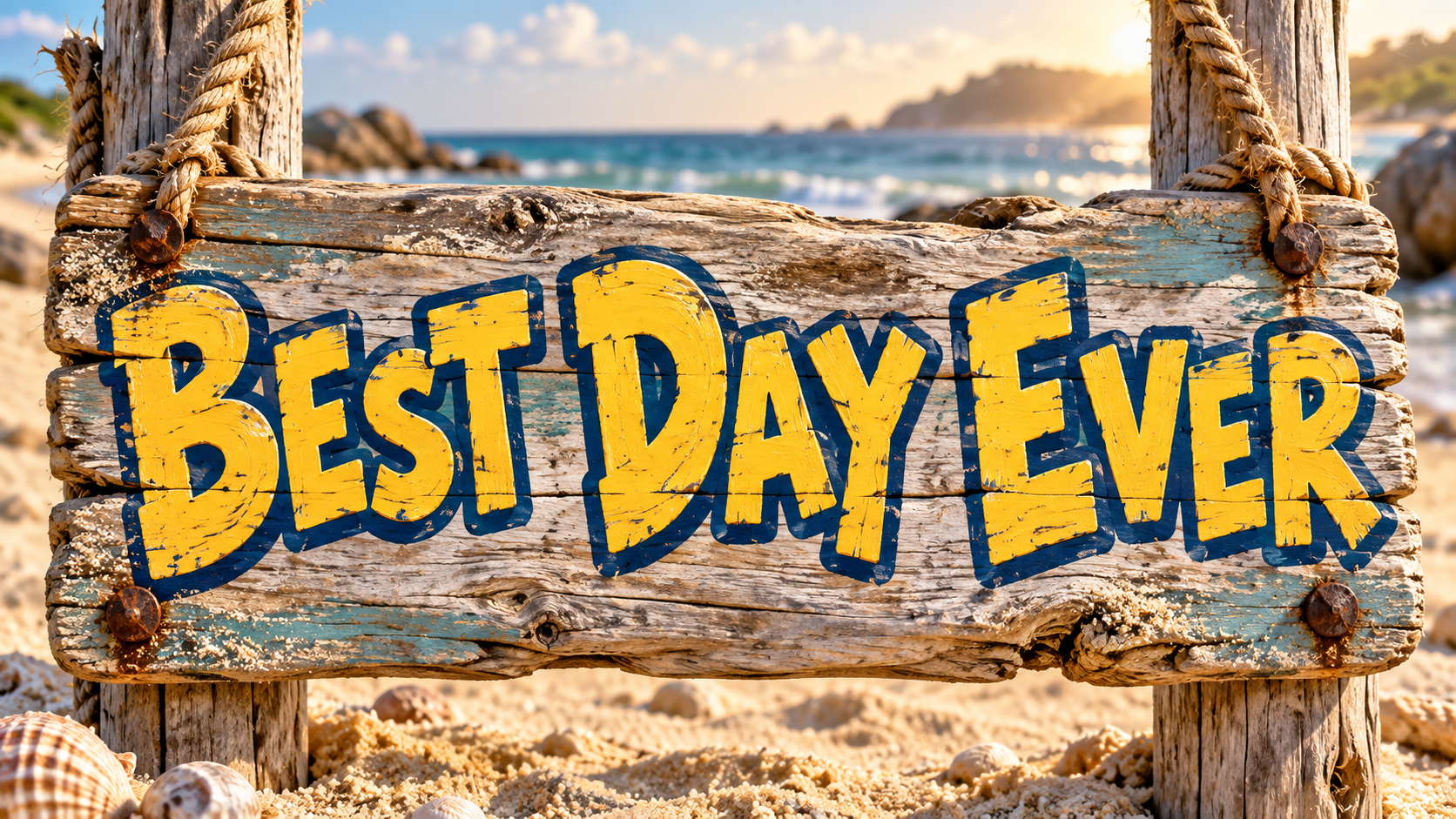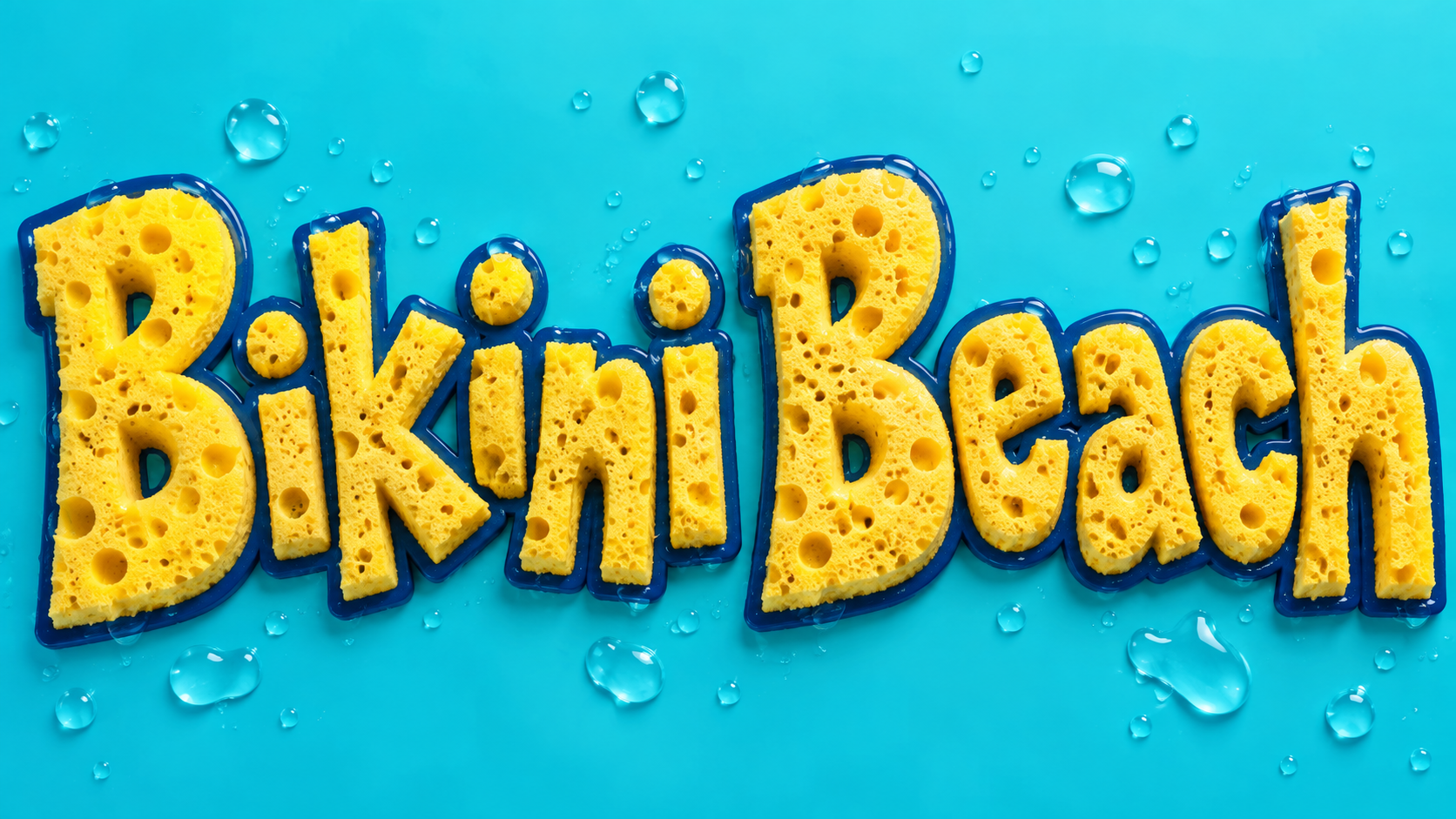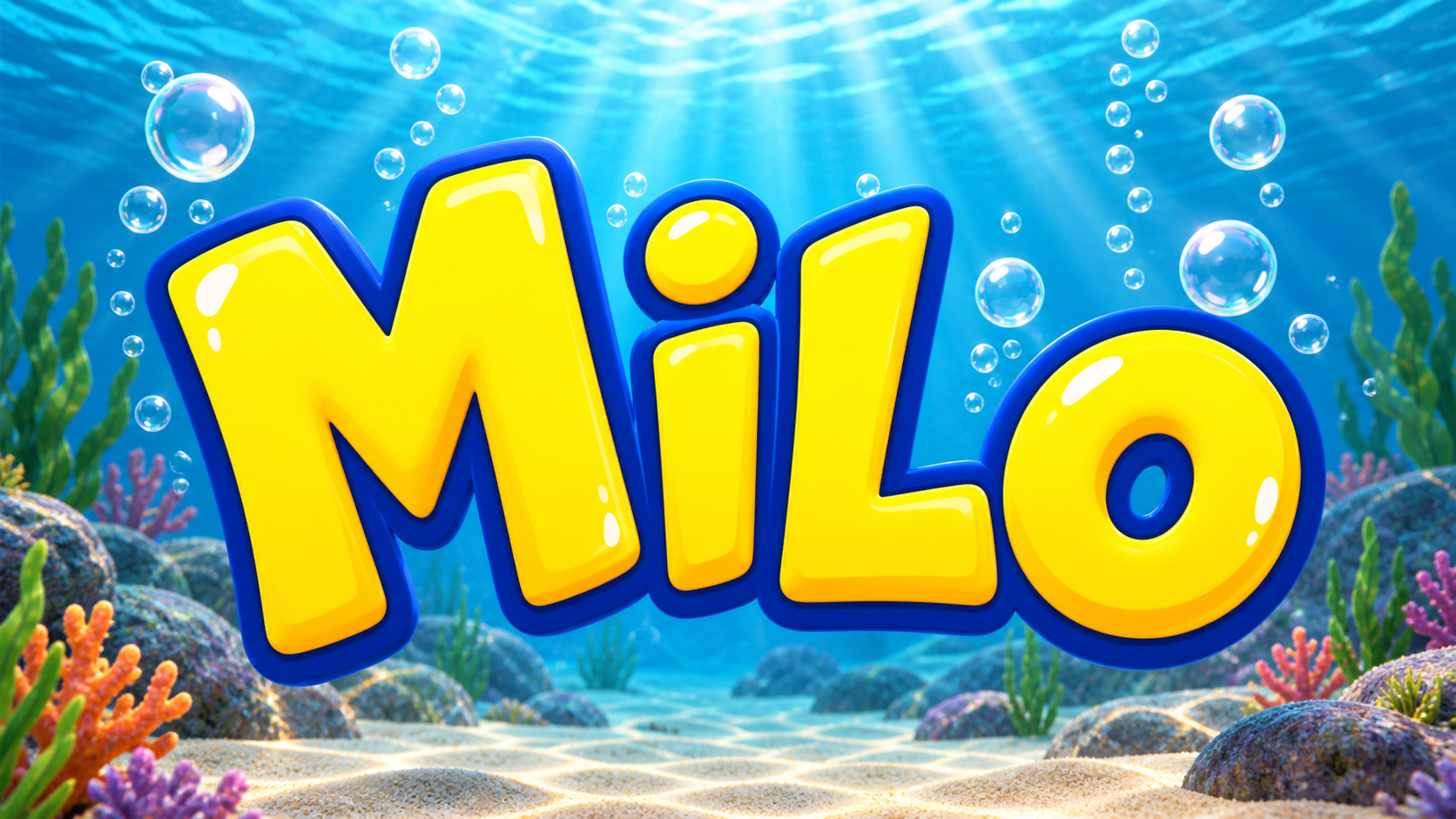
SpongeBob Font Generator
Wobbly hand-lettered caps, sponge texture, and nautical signboards. Fan-made undersea lettering.
bouncy yellow capitals with a thick blue outline and a soft drop shadow, letters tilting playfully in alternate directions, bubbles rising behind them
Title Card creates bouncy yellow capitals as an original undersea cartoon image.
The SpongeBob font people search for is the title-card look: fat hand-drawn capitals that refuse to sit on a straight baseline, each letter a slightly different height and tilt, outlined in dark blue and filled with sunny yellow. Fontique does not host or reproduce that lettering or the show logo. Our AI draws your own word in an original undersea cartoon style built from the same ingredients.
Five presets cover the range. Title Card gives you the bouncy yellow capitals with a blue outline and rising bubbles. Porous Sponge builds the letters out of actual sponge with visible holes and soft edges. Nautical Sign burns the word into weathered driftwood, Underwater Bubbles forms each letter from clustered bubbles in blue water, and Wobbly Marker keeps it flat and hand-drawn with an uneven marker line.
If you came looking for the mocking meme text with aLtErNaTiNg CaPiTaLs, that is a different thing entirely and our weird text generator does it instantly for free. Used as a spongebob text generator, this page produces images rather than characters: PNG or JPEG artwork with its scene included, for party invites, fan art, thumbnails, and lunchbox labels. Fan-made, not affiliated with the show.